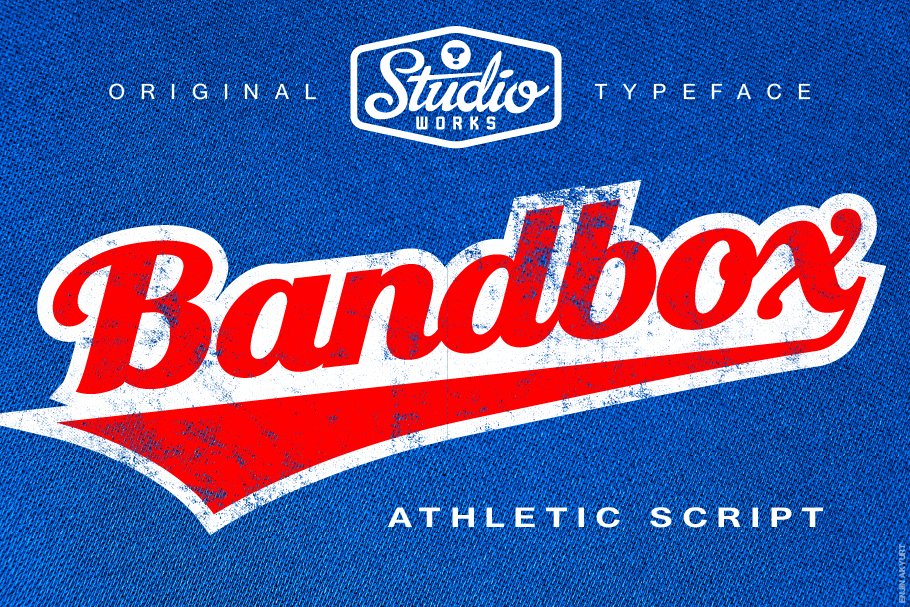
Introducing Bandbox, a bold athletic script typeface that is perfect for logotypes, posters, and t-shirt designs. Created by the talented Sean Thorenson, this font family is a must-have for any designer looking to make an impact with their work.
With its heavy, streaming cursive letterforms, Bandbox is inspired by classic sport logo lock-ups. This typeface comes bundled with a collection of 18 athletic swash banners and ligatures, making it the perfect choice for any sports-related design.
Bandbox includes upper and lower case characters, numbers, standard punctuation and glyphs, as well as multilingual support. This single-weight typeface is available in OTF file format and comes with free updates and feature additions.
But that's not all! Bandbox also includes alternate characters, ligatures, and swashes that are best seen using the Glyphs Panel. If your application supports Open Type features, you're in luck! However, for those who use software unable to utilize Open Type features, the athletic swashes, ligatures, and alternate characters are also included as separate OTF files.
Please note that the Bandbox title art, 'Varsity' and 'Brooklyn' pieces take advantage of shearing to angle the text. To complement these pieces, Thoren Sans (available from StudioWorks) is the perfect sans serif font. Additionally, 'East Borough Stickball' typeface is Killebrew Homer (also available from StudioWorks).